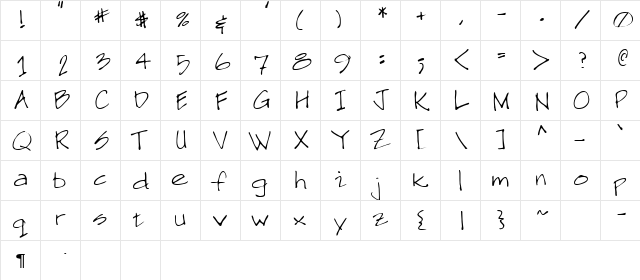
Neil Regular
Design Context for Neil Typeface
Neil takes a measured approach to typography — its balanced proportions and neutral character make it a reliable workhorse for both digital and print work.
Pro Tip: Use Neil in both headline and body roles to test its range before committing to a single application.